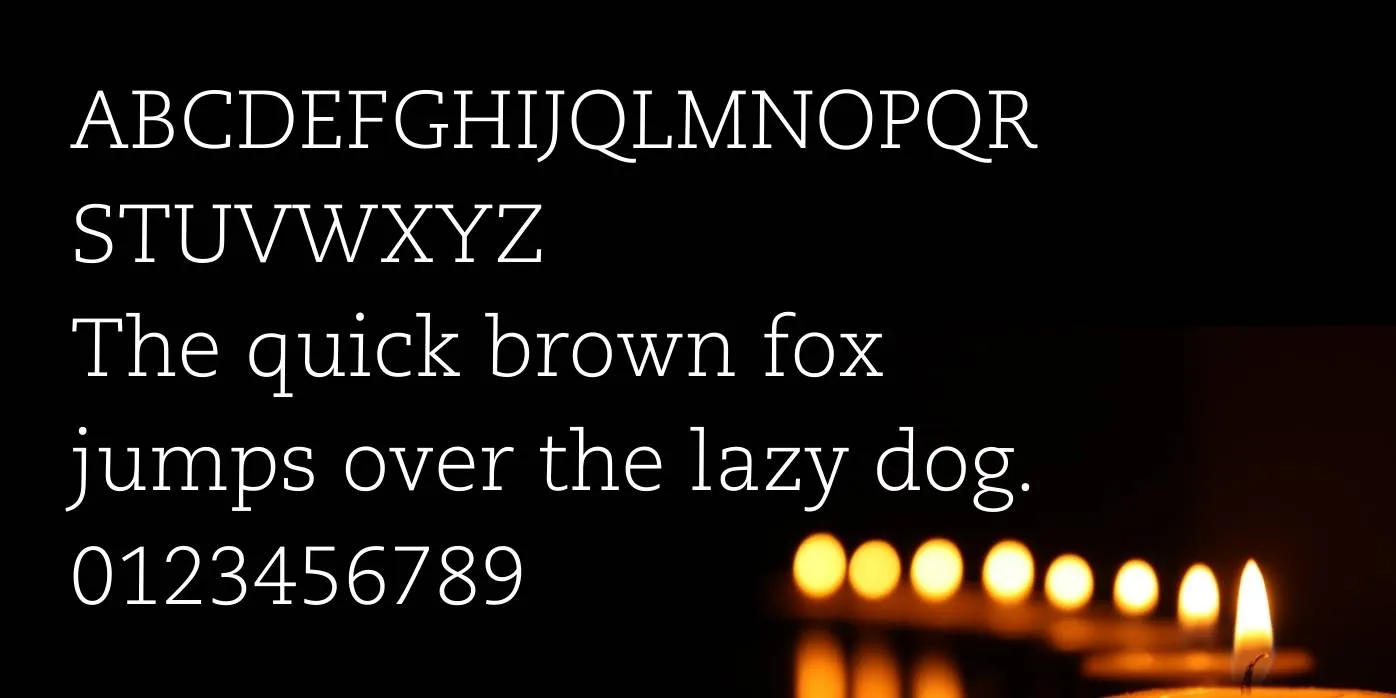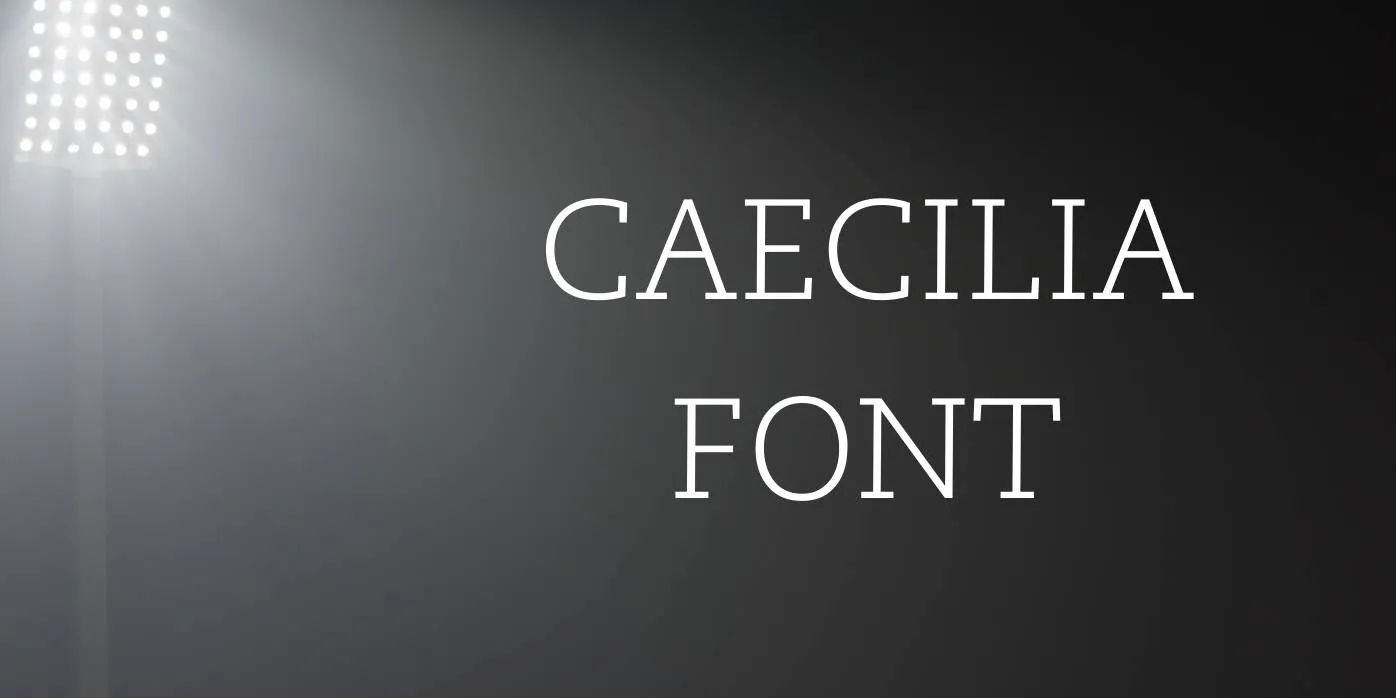
Caecilia Font
Introduce you a great cool for heading or titling typeface that is known as Caecilia Font. It belongs to a slab-serif font family and was designed by Peter Matthias Noordzij. It is released with the help of a Company named Mergenthaler Linotype. This typeface is lightweight and slim that is not only good for headings or titling but also manageable for today’s modern designs.
The font family has Truetype Outlines, Opentype Features, and digitally signed-in conjunction. The typeface vast styles include Light, Roman, Bold, Heavy, and all styles have more features in their alternative weights. It also has the best matching personality with Sanchez Font typeface that you can say that it has pairing nature with other slab serif typefaces.